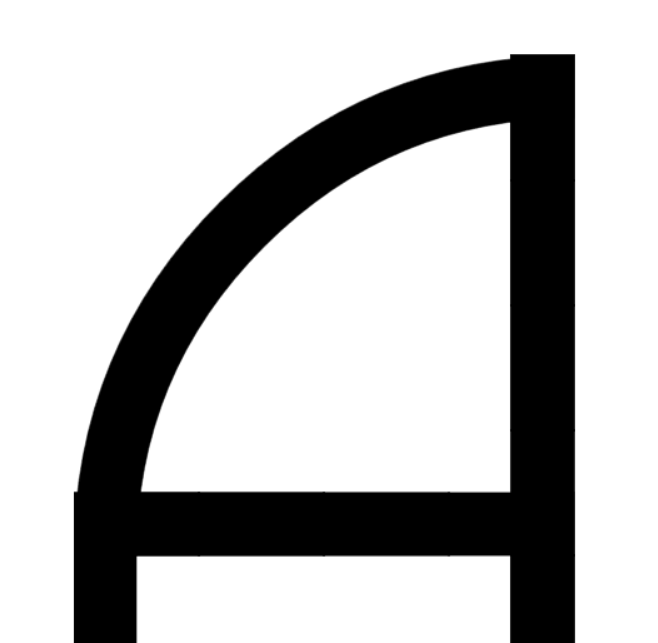
• This font was made with only 9 blocks. Each character has a width of 1. That's a lot of restrictions. sorry for the really cryptic symbols, like 0 and the punctuation and plus sign and commercial @. But it's a nice little font with sharp edges and perfect curves, so just stare at it a little while.
Not bad so fat, one small piece of advise,
Now your curves have little outside overshoots from intersecting stroke ends. U might want to modify these a bit, making them fall within the glyph stroke outlines to preserve smooth edges throughout!